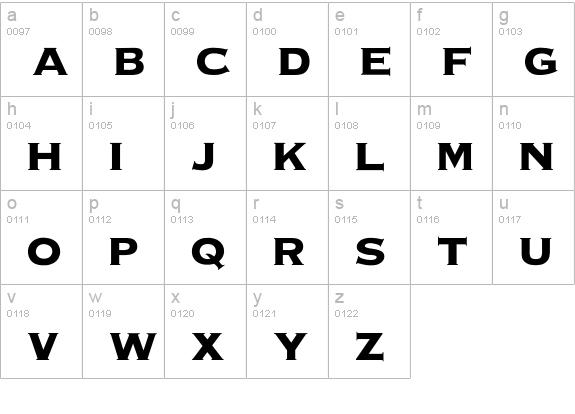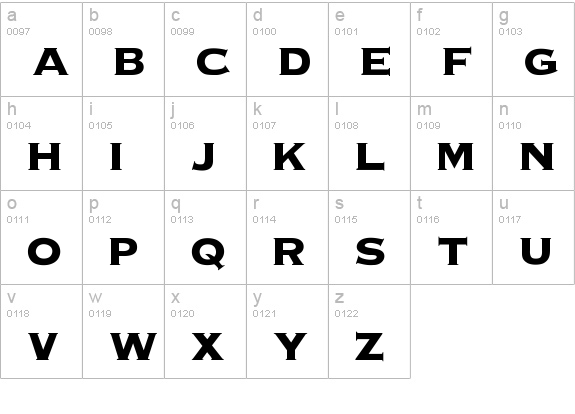
OPTICopperplate-Heavy Font Details
OPTICopperplate-Heavy is a heavy, high-impact variant in the OPTICopperplate typeface family \xE2\x80\x94 well suited to high-impact headlines, posters, and display advertising.
OPTICopperplate-Heavy is a timeless and elegant font that exudes sophistication and professionalism. With its bold and commanding presence, this font is perfect for creating eye-catching headlines, titles, and logos. The strong, clean lines of OPTICopperplate-Heavy make it a versatile choice for both print and digital designs. What sets OPTICopperplate-Heavy apart is not only its striking appearance but also the fact that it is available for free download at FontsMarket.com. This means that you can add this premium font to your collection without any cost, making it a valuable resource for designers, creatives, and anyone looking to elevate their projects with a touch of refinement. Whether you're working on a branding project, marketing materials, or a personal design endeavor, OPTICopperplate-Heavy is sure to make a statement and leave a lasting impression. Download this exceptional font for free today and unlock its full potential for your next creative venture.